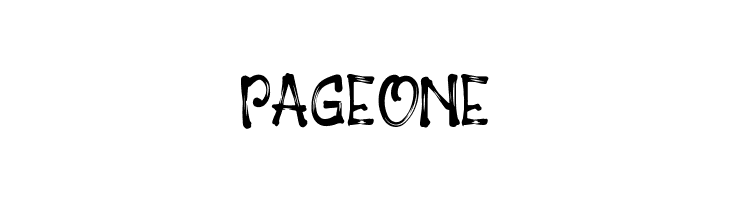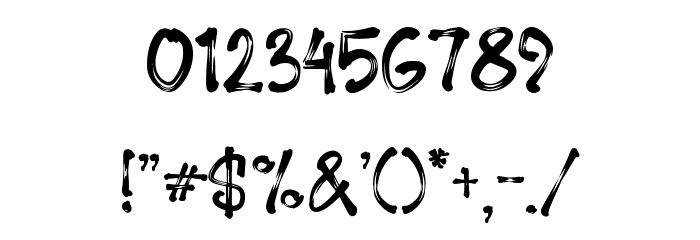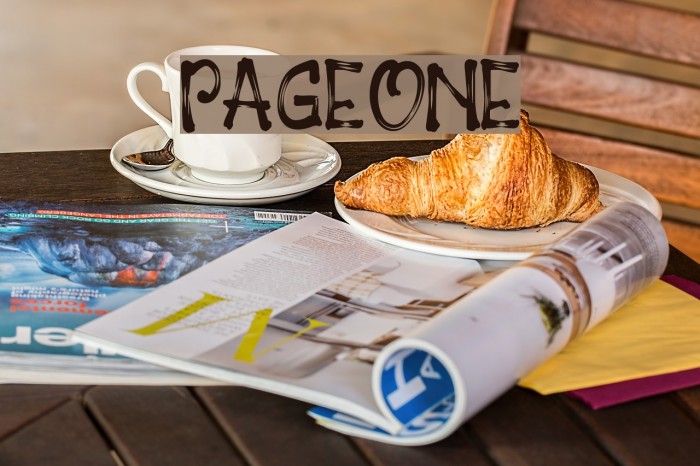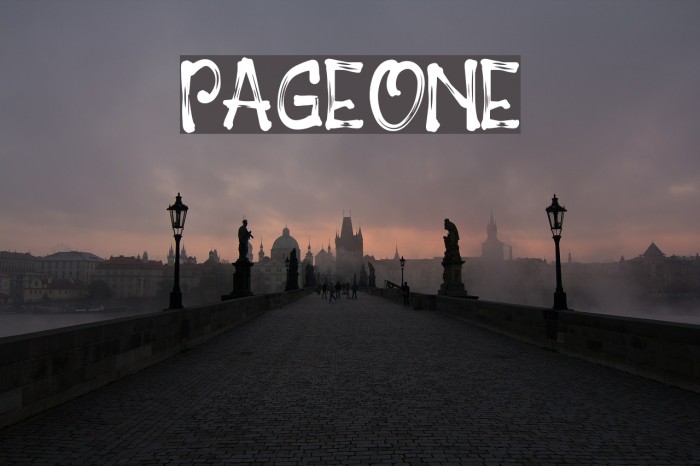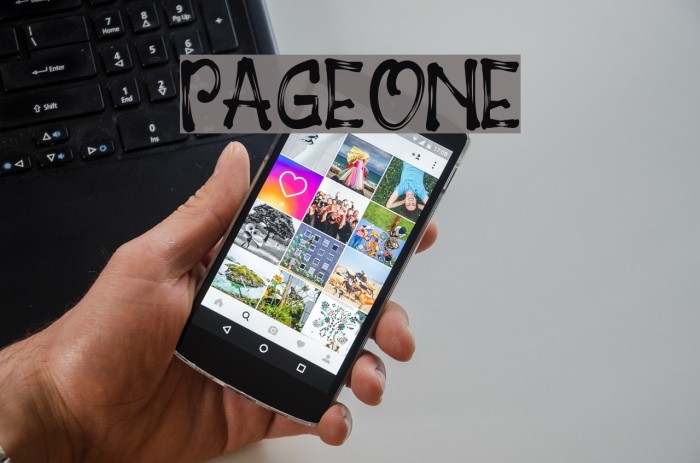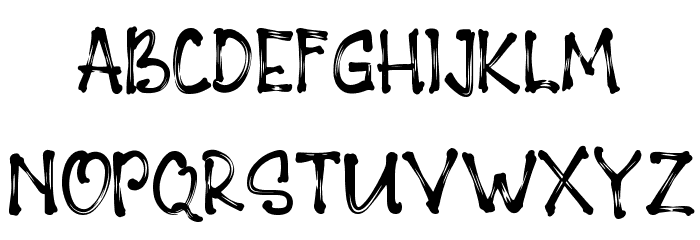
PAGEONE Font
PAGEONE Description
This font features a bold and dynamic style with a hand-drawn appearance. The characters have a playful and artistic flair, with varying stroke thickness that adds a sense of movement and energy. The uppercase and lowercase letters maintain a consistent design, while the numbers and special characters complement the overall aesthetic. The font's unique style makes it stand out, with a slightly rough texture that gives it a casual and creative feel. It's suitable for projects that require a touch of personality and artistic expression.
A bold, hand-drawn font with dynamic strokes and artistic flair from Uncategorized fonts.
- Proposed Projects: Ideal for posters, creative branding, artistic projects, and playful designs.
- Overall Style: Artistic, Playful